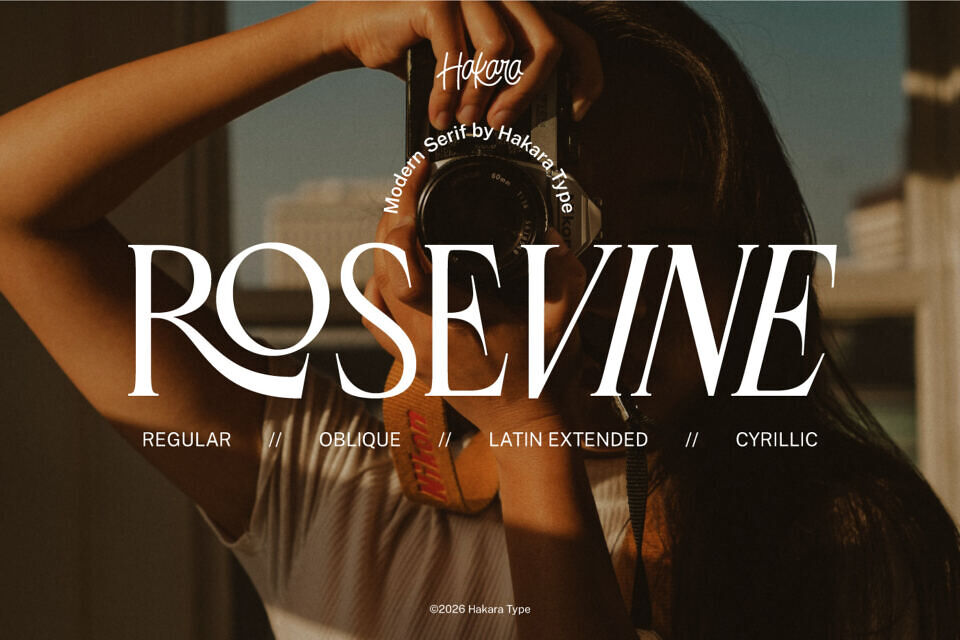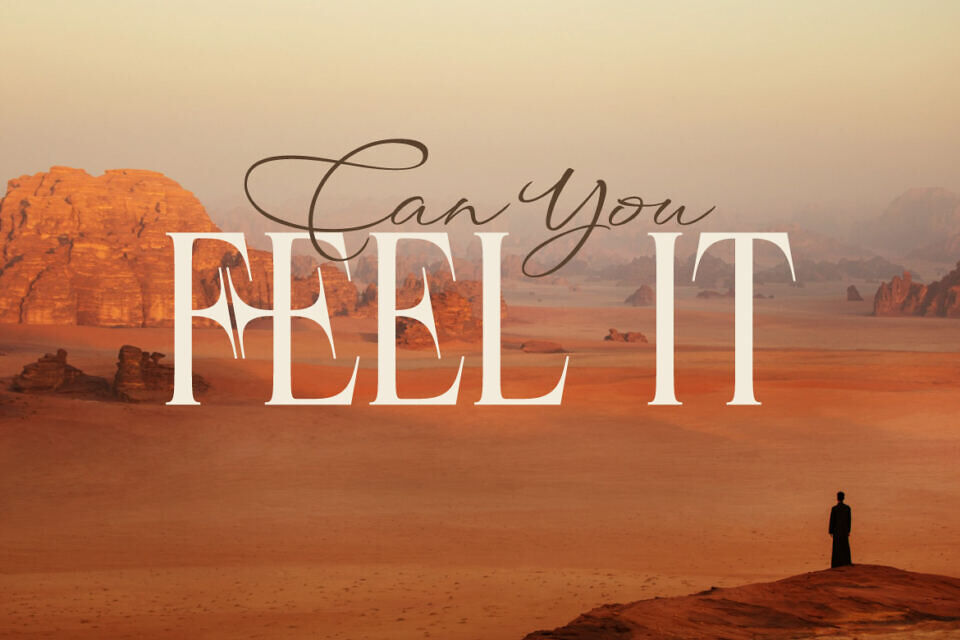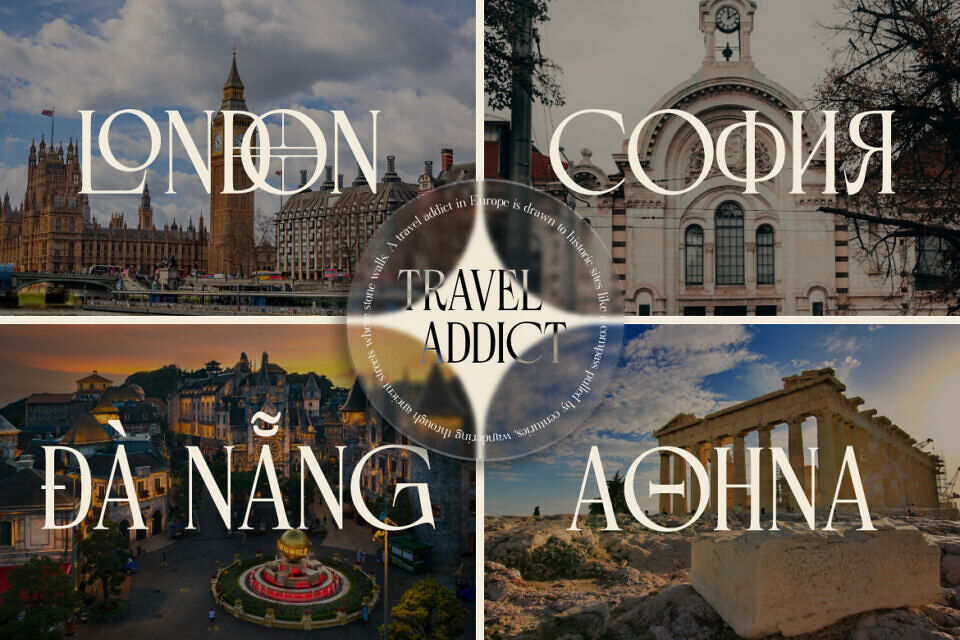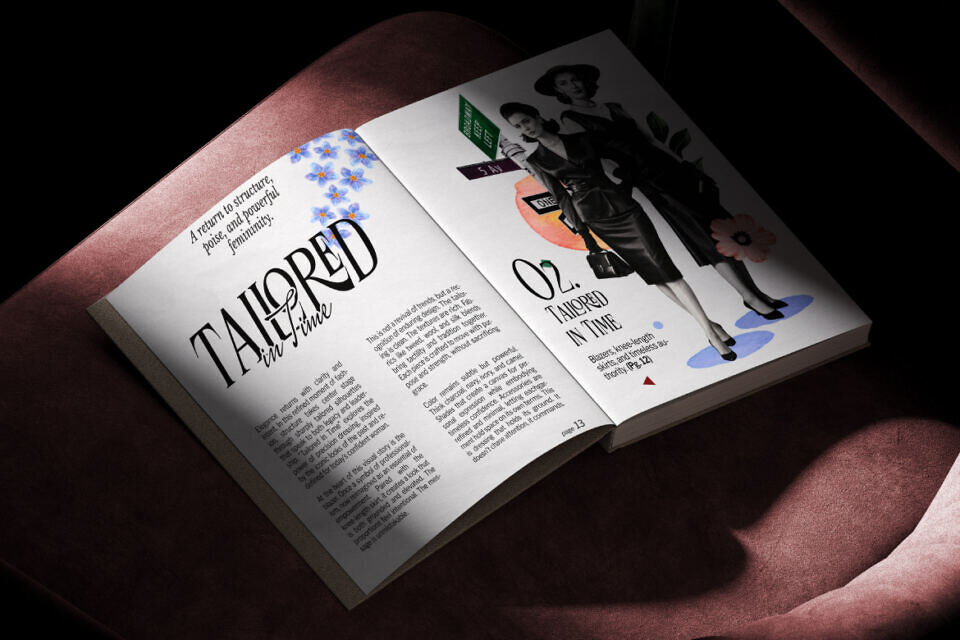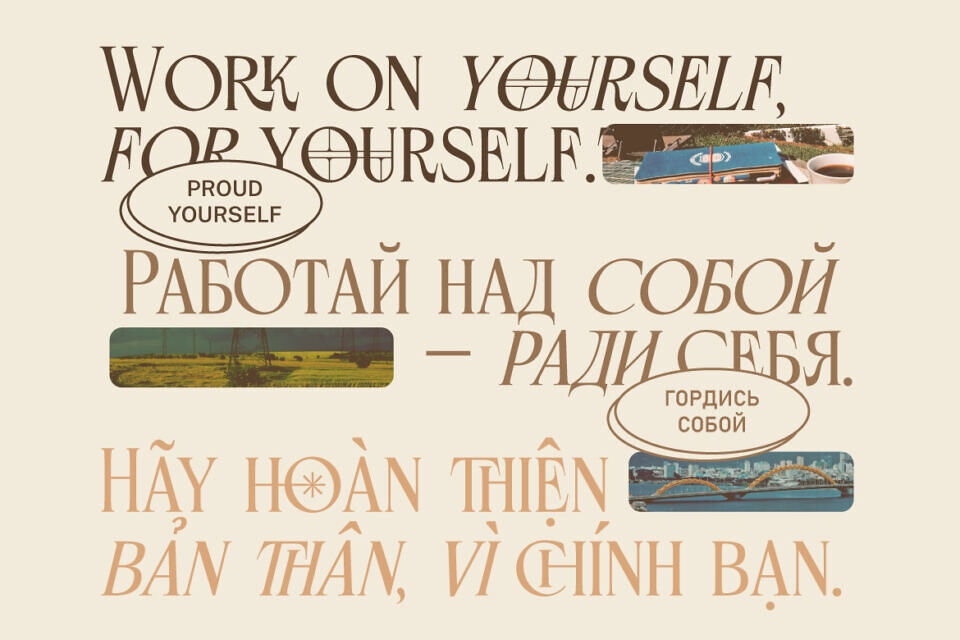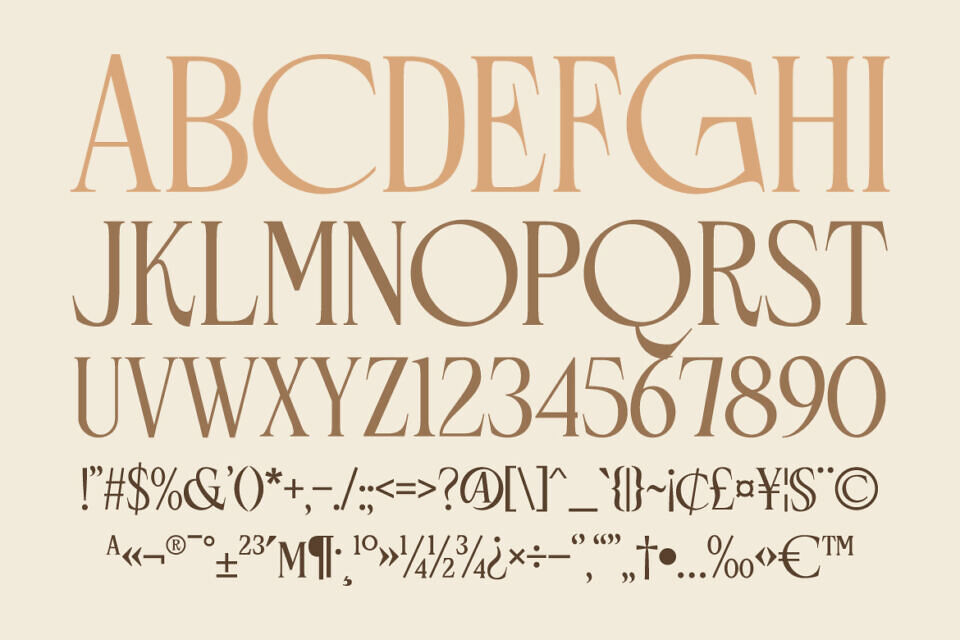
Rosevine Font
Rosevine is a refined modern serif typeface designed with elegance, contrast, and timeless sophistication. It blends sharp serif details with smooth curves, creating a luxurious yet contemporary aesthetic that works beautifully across branding, editorial layouts, fashion campaigns, and high-end packaging.